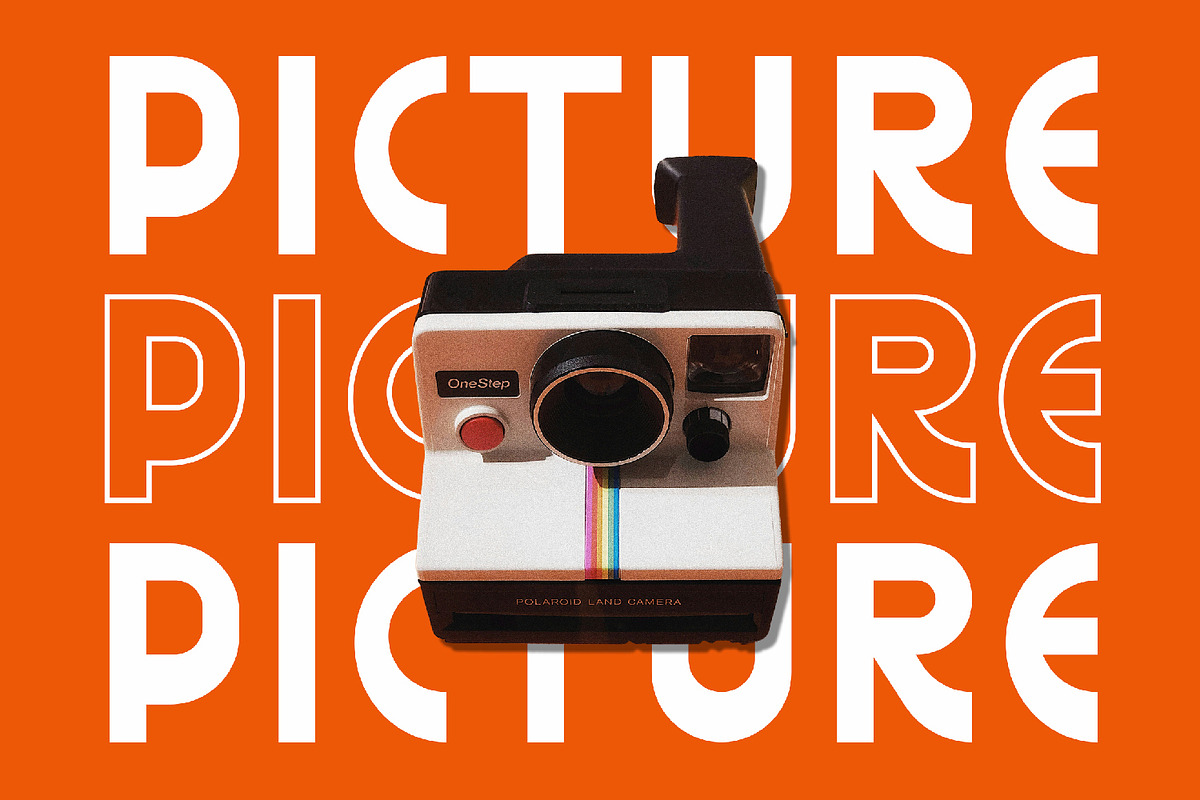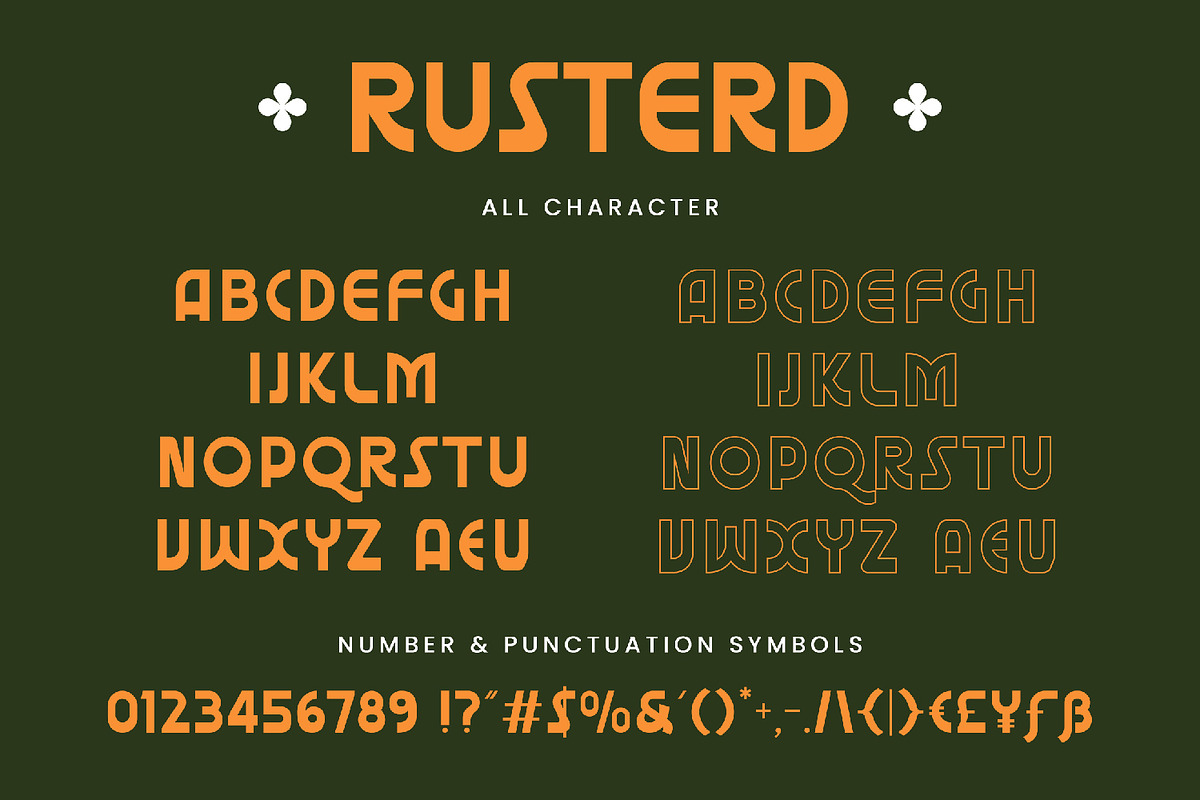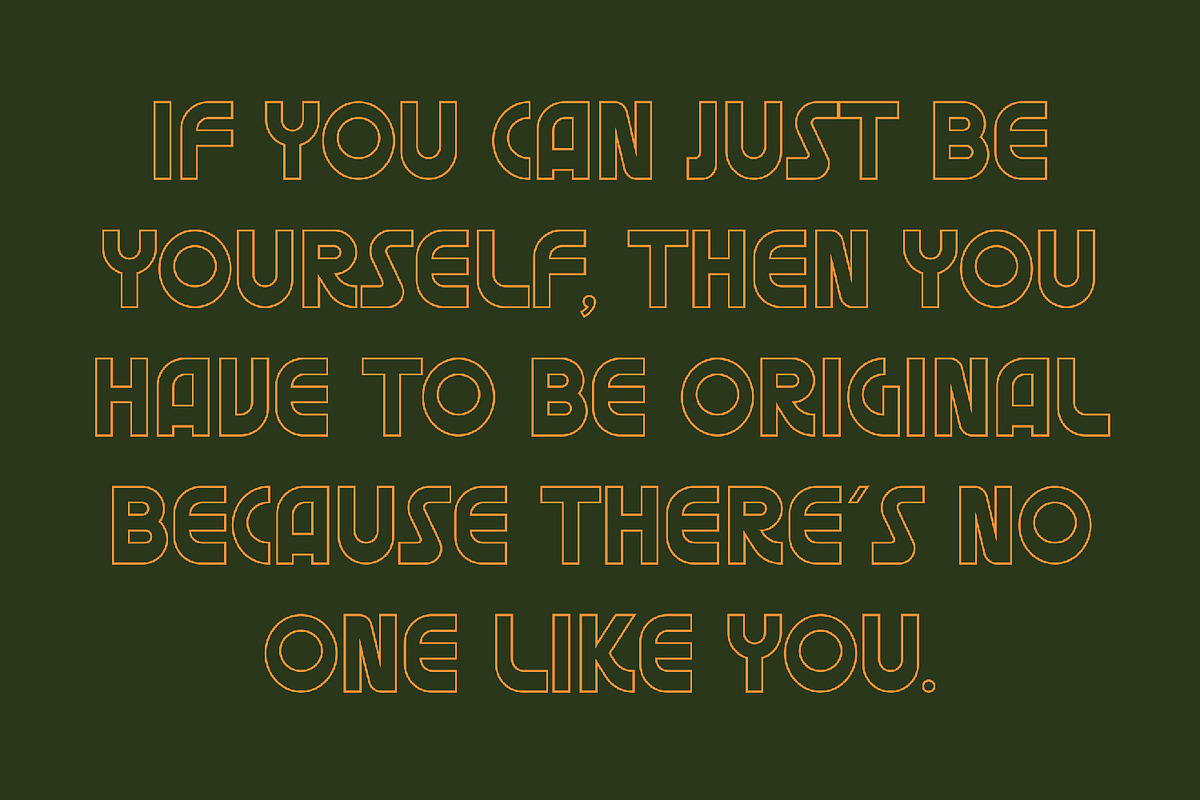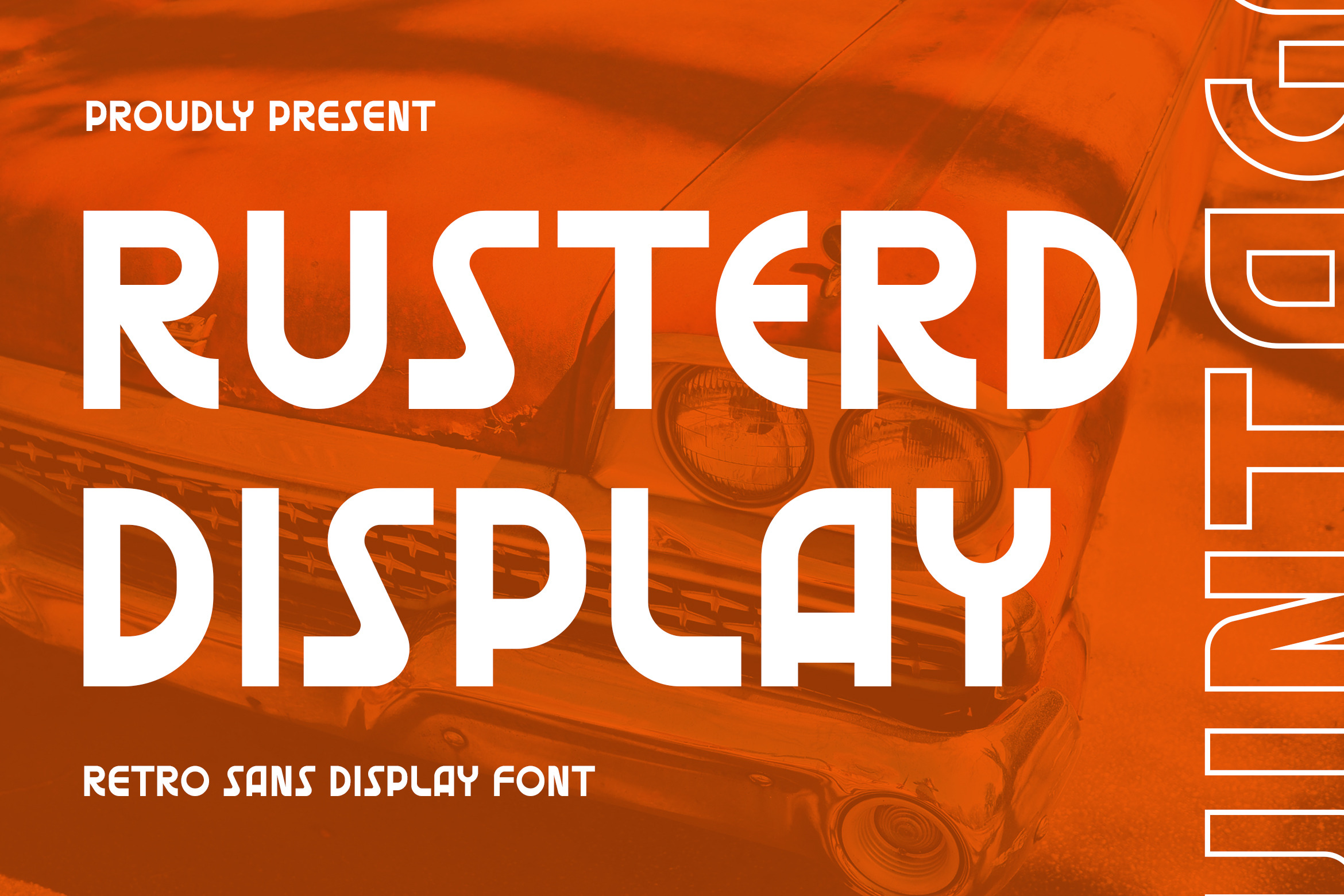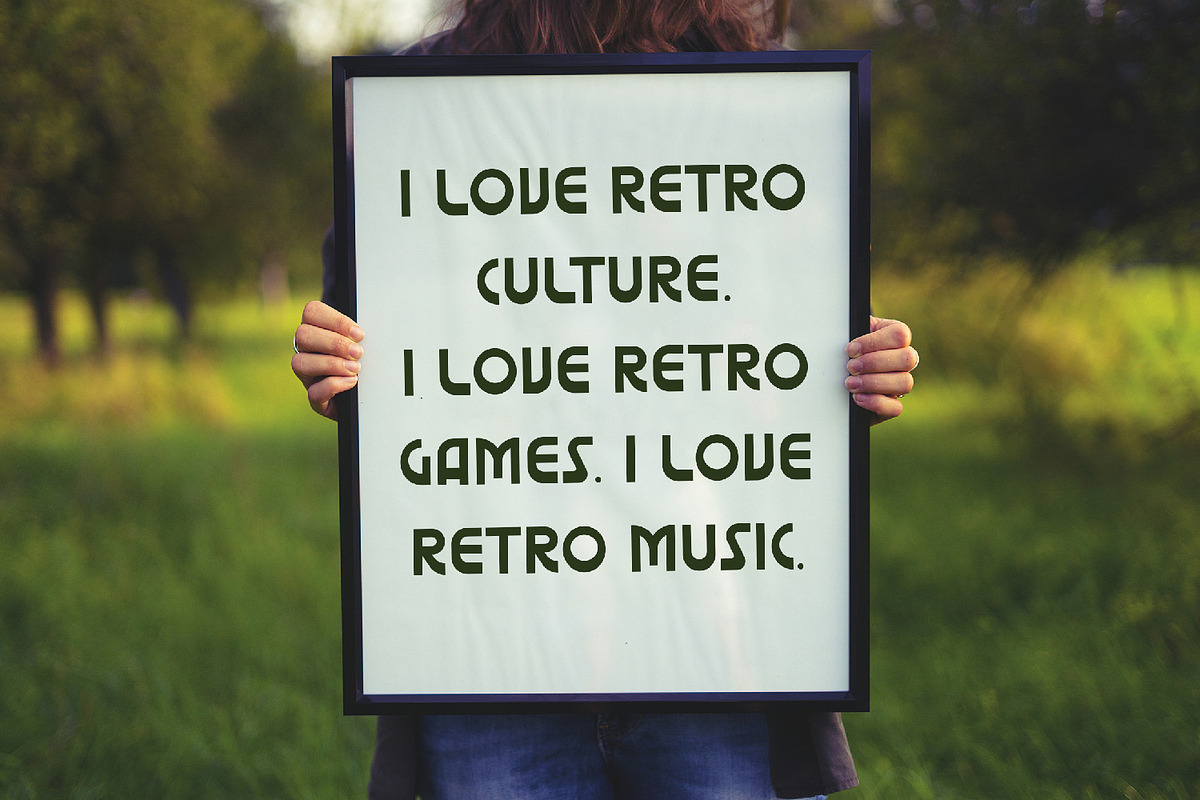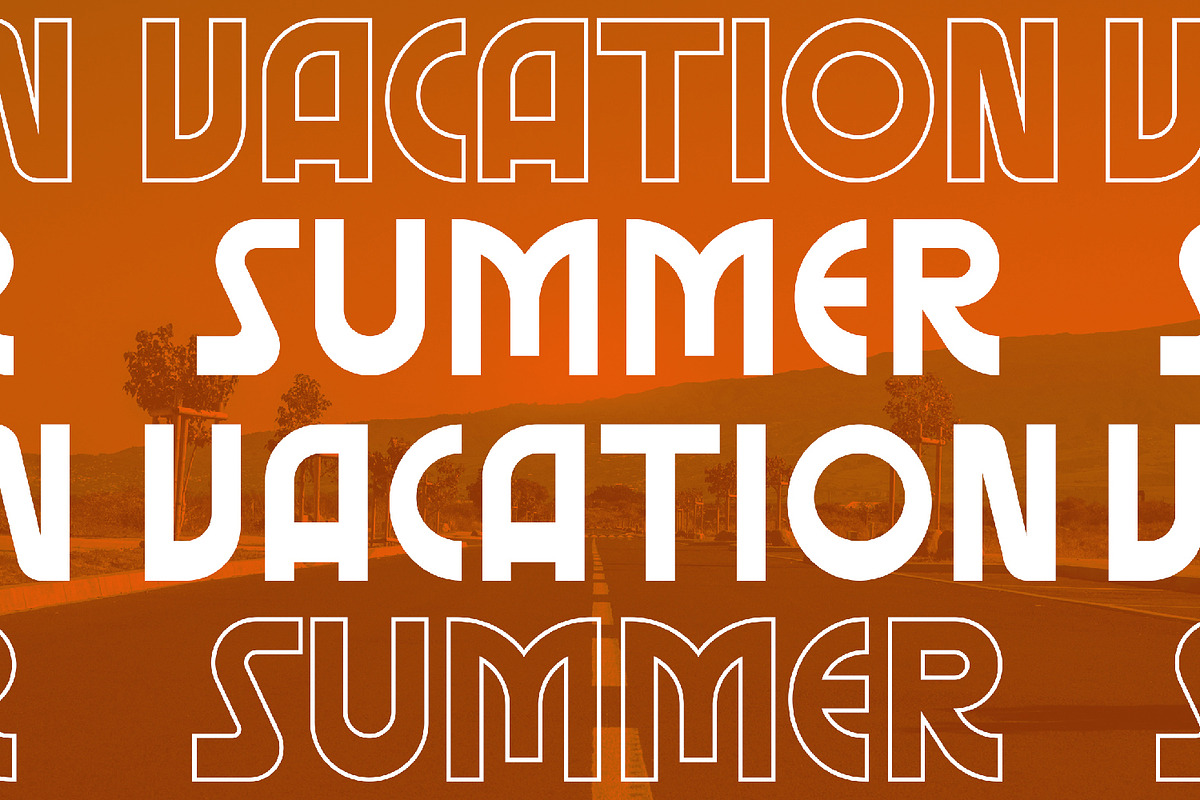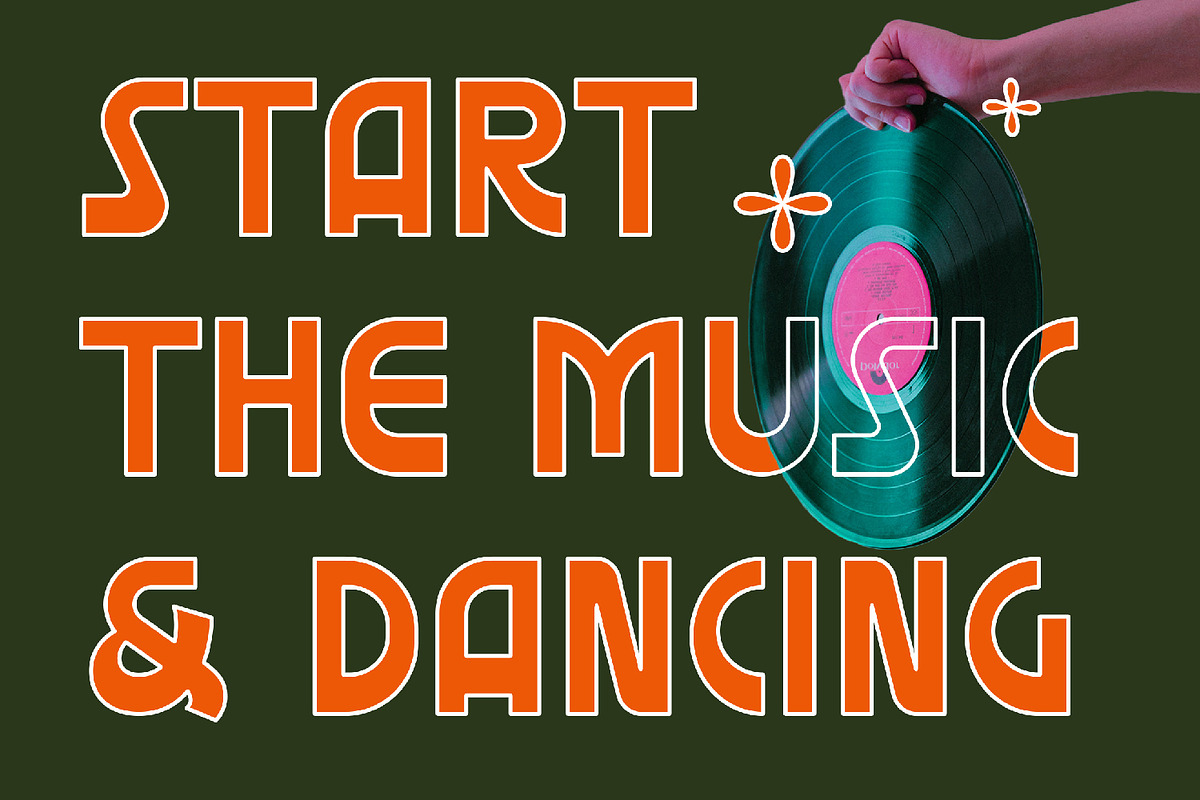
Rusterd Retro Sans Font
Rusterd Retro Sans Font contains a lowercase, uppercase, symbol, and also supports multi-language. There’s a lot of ligature in this font. Rusterd Retro Sans Font also comes with ligatures, stylistic alternates and many more. this font suitable for fashion, branding, catalog and other design that you want.